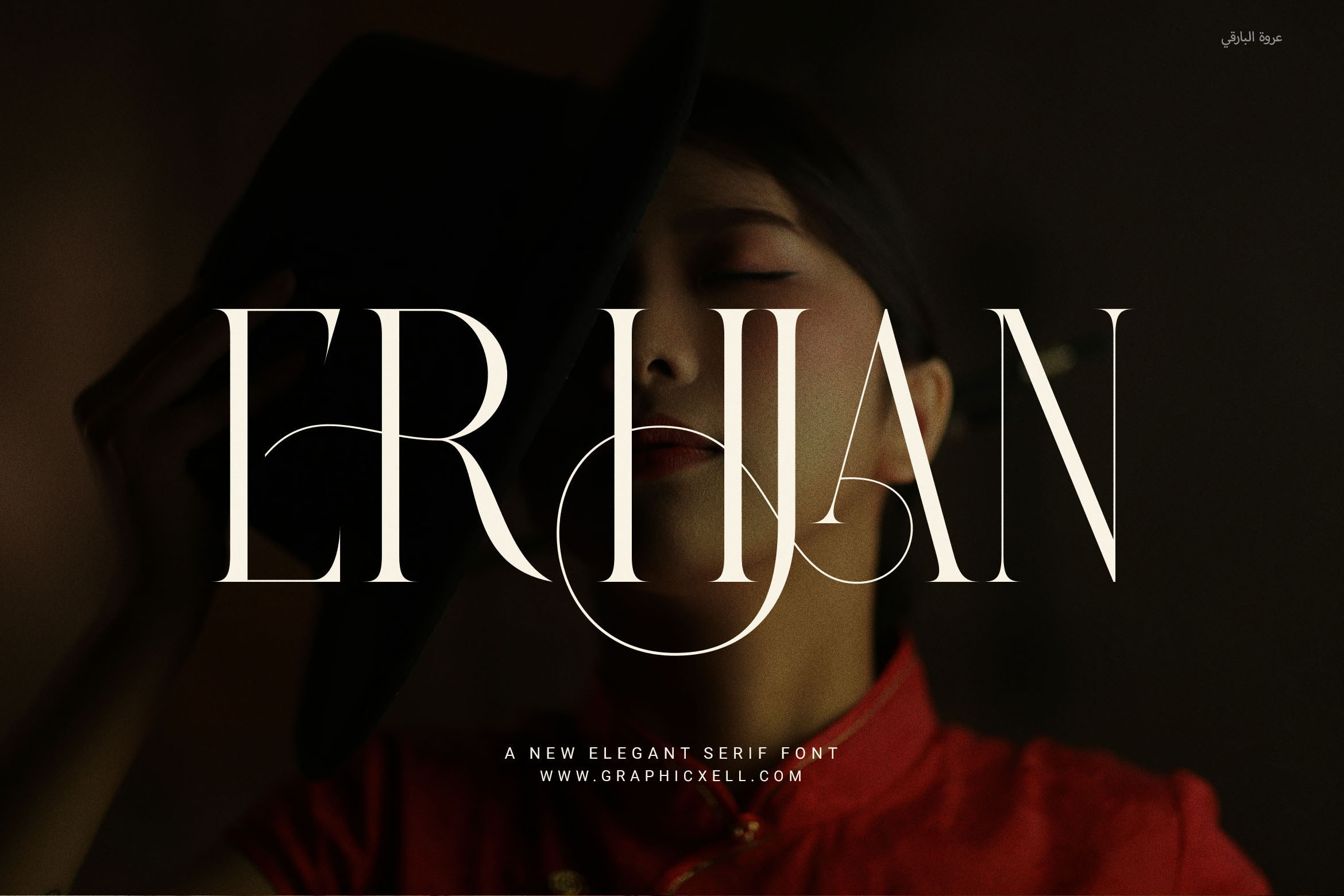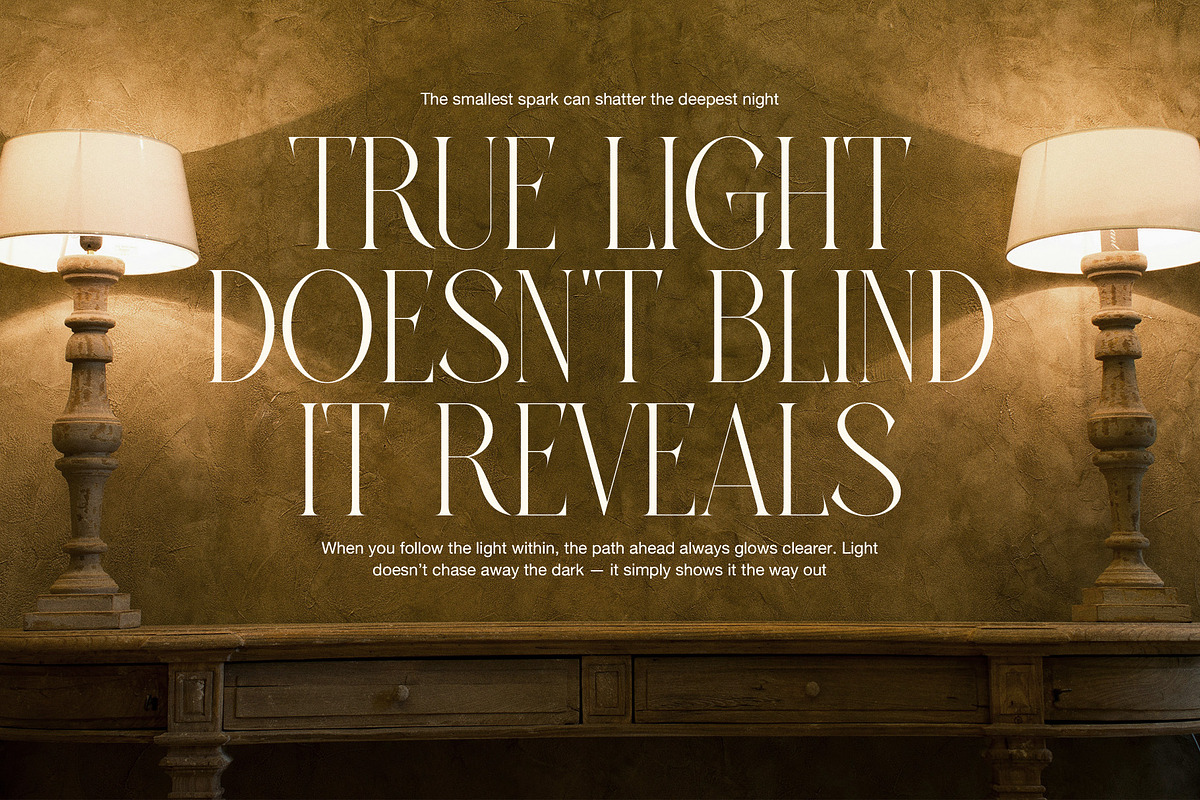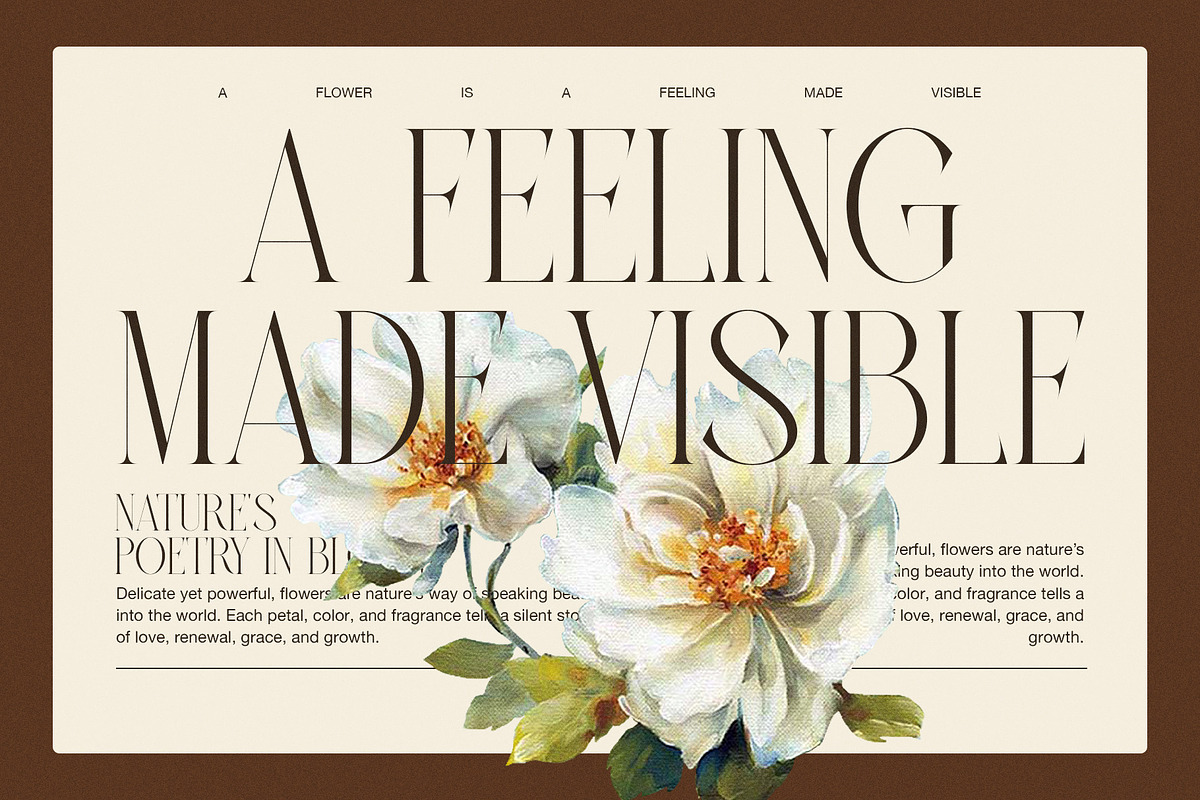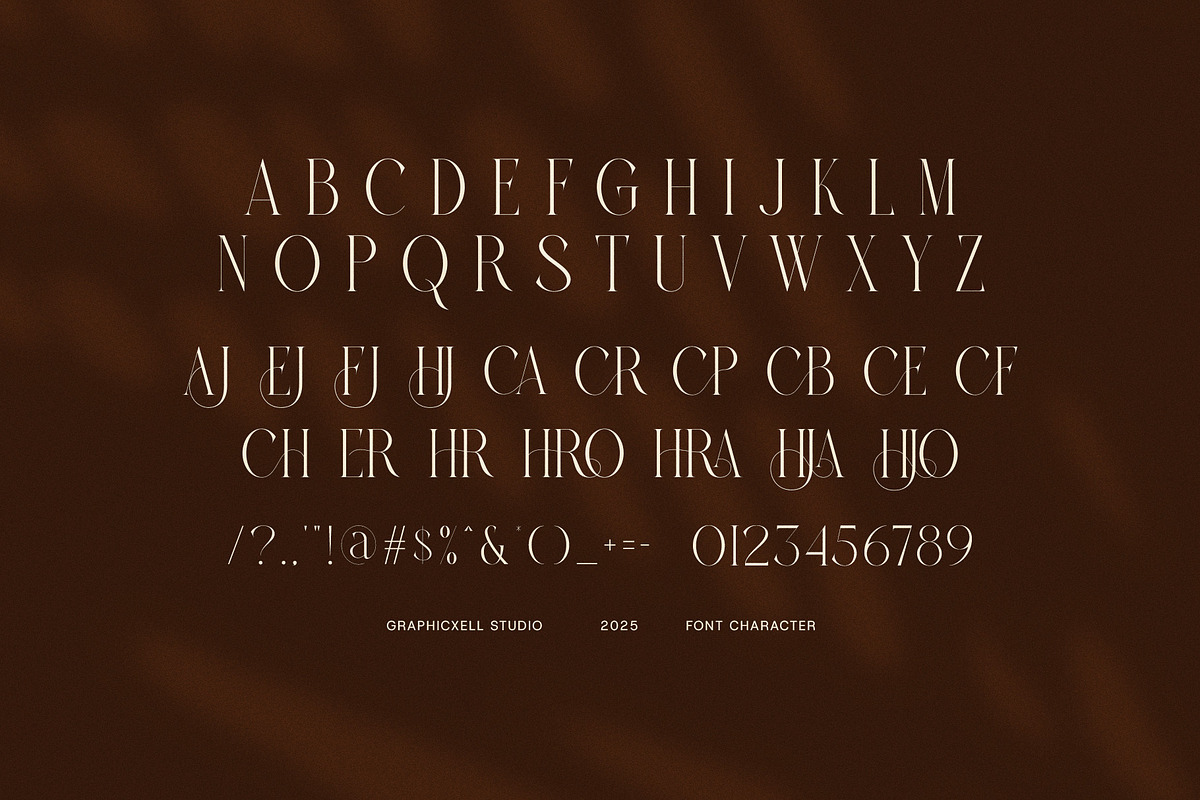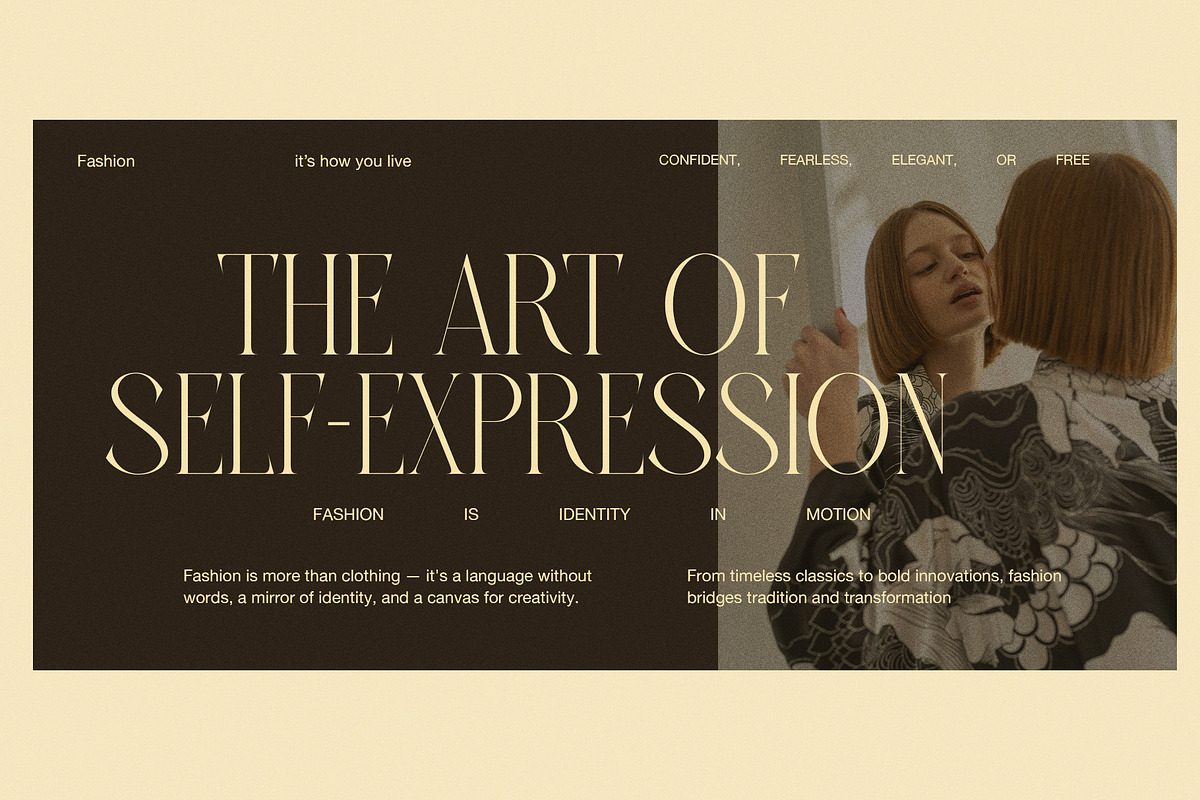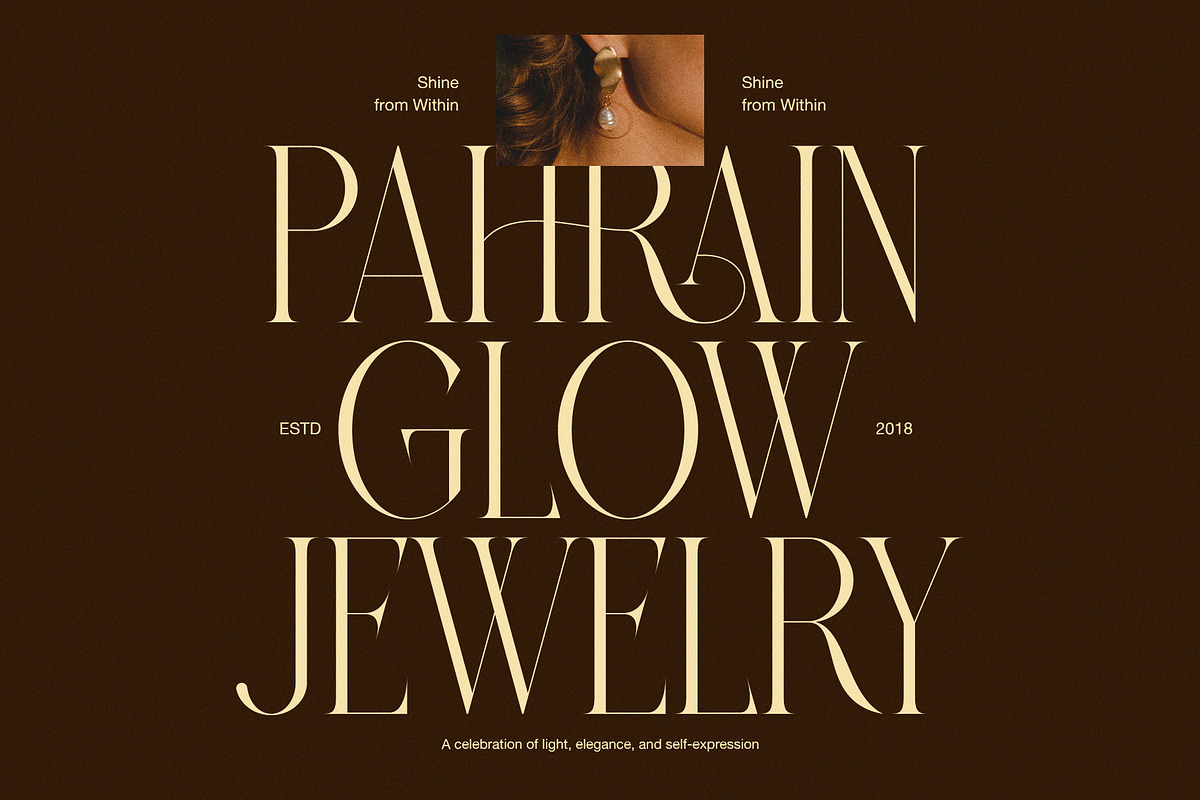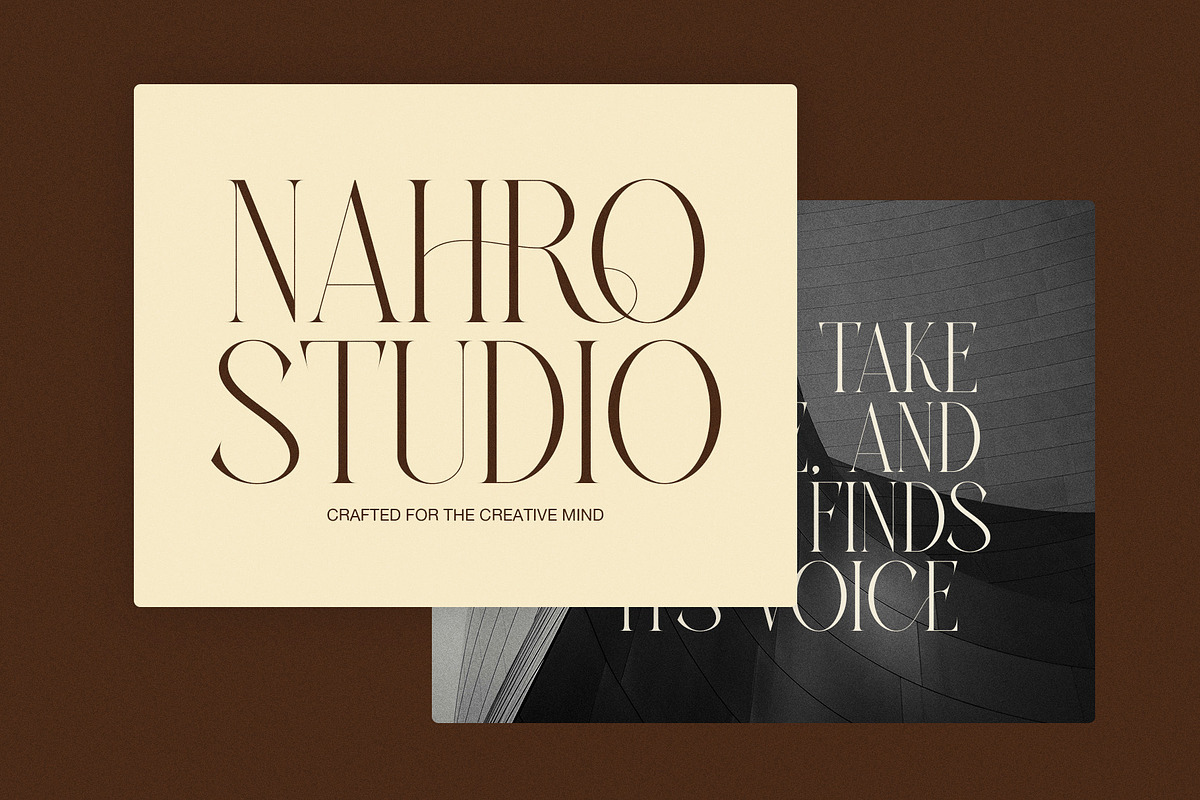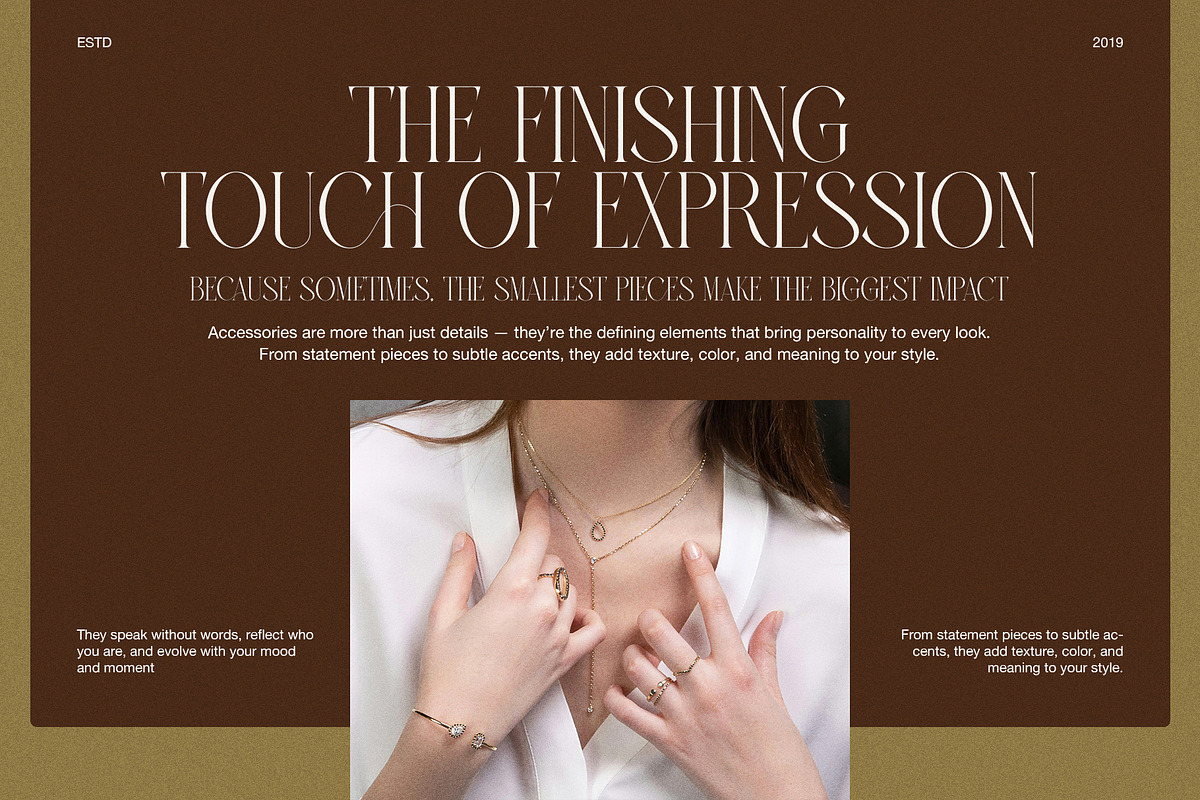
Erhjan Elegant Serif Font
Erhjan Elegant Serif Font – Timeless Elegance for Modern Brands
Erhjan Elegant Serif Font is a modern serif typeface designed to bring a touch of class to every project. It combines traditional serif style with clean, stylish curves. Therefore, it works beautifully for brands that want to appear professional and elegant at the same time.
This font features soft proportions and refined letterforms. Also, it includes functional ligatures that add a unique, attractive look. Because of this, your designs will always stand out with a polished and premium feel.
You can use Erhjan across many industries. For example, it's perfect for fashion labels, boutique branding, product packaging, and editorial layouts. It also fits well in website headers, business cards, invitations, and promotional materials.
Moreover, the font is highly legible, whether in print or on screen. This makes it ideal for both creative professionals and corporate designers. In fact, Erhjan offers a blend of elegance and function that few fonts can match.
Why choose Erhjan Elegant Serif Font?
Elegant serif style with modern lines
Designed for clarity, class, and style
Includes stylish ligatures for added detail
Versatile use: from branding to packaging
Ideal for fashion, beauty, food, and more
If you want your brand to feel refined and modern, Erhjan is the perfect serif font for you.